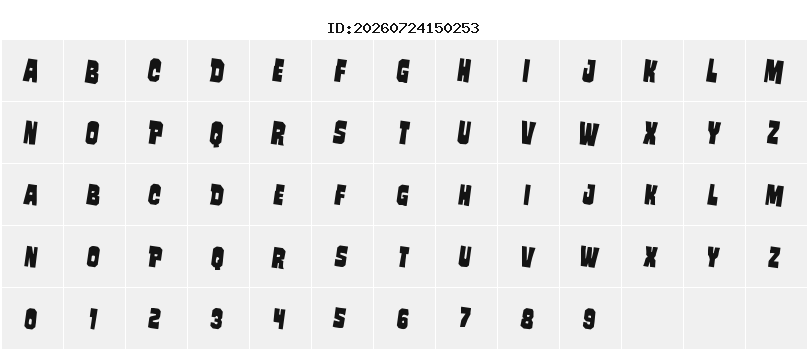
Mindless Brute Rotated 2 Preview
• Font Name: Mindless Brute Rotated 2
• Full Font Name: Mindless Brute Rotated 2
About Mindless Brute Rotated 2.ttf
Mindless Brute Rotated 2.ttf is a modern, elegant sans-serif font designed for ultimate readability and visual harmony. Perfect for branding, headlines, web design, and print materials.